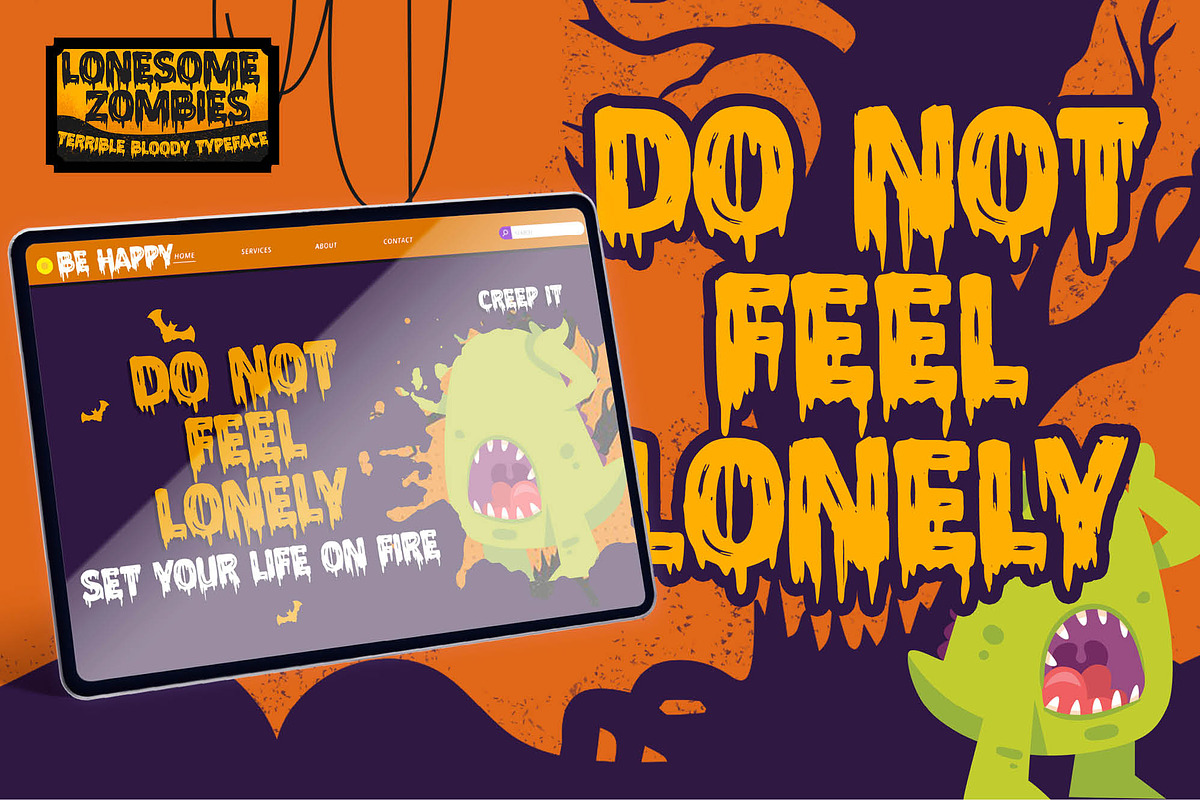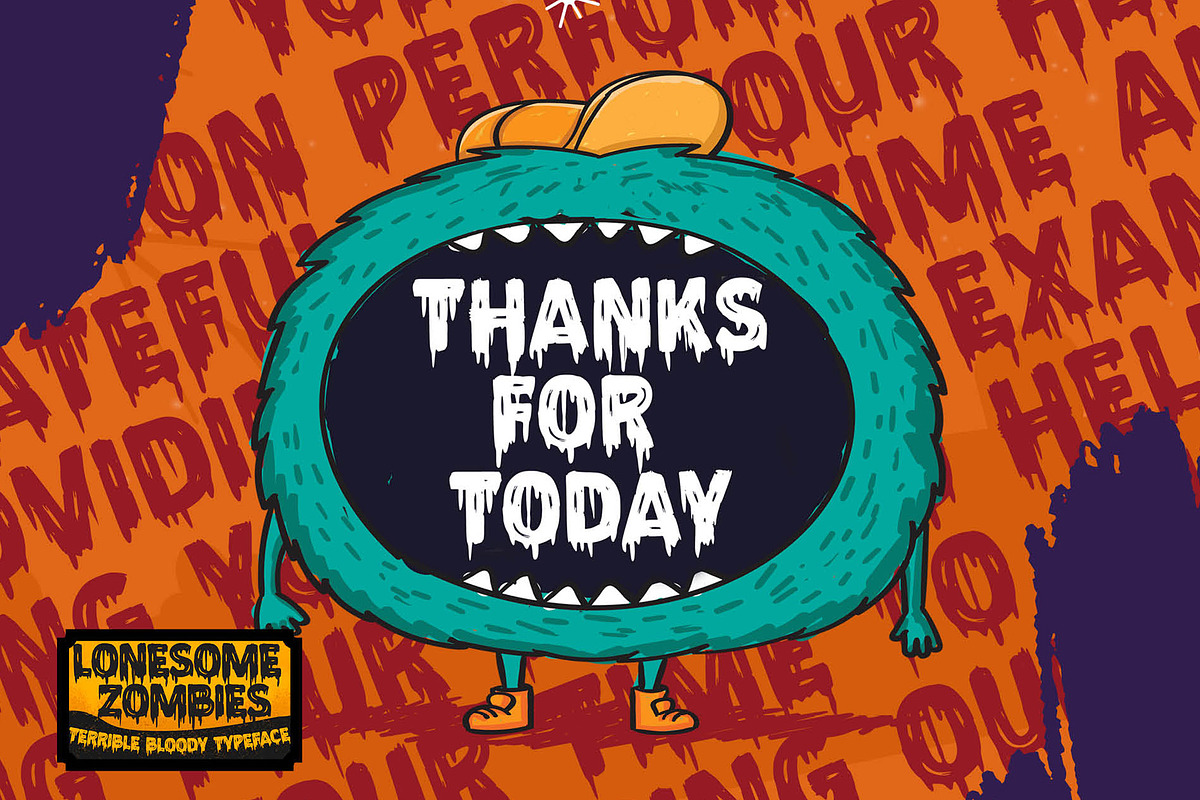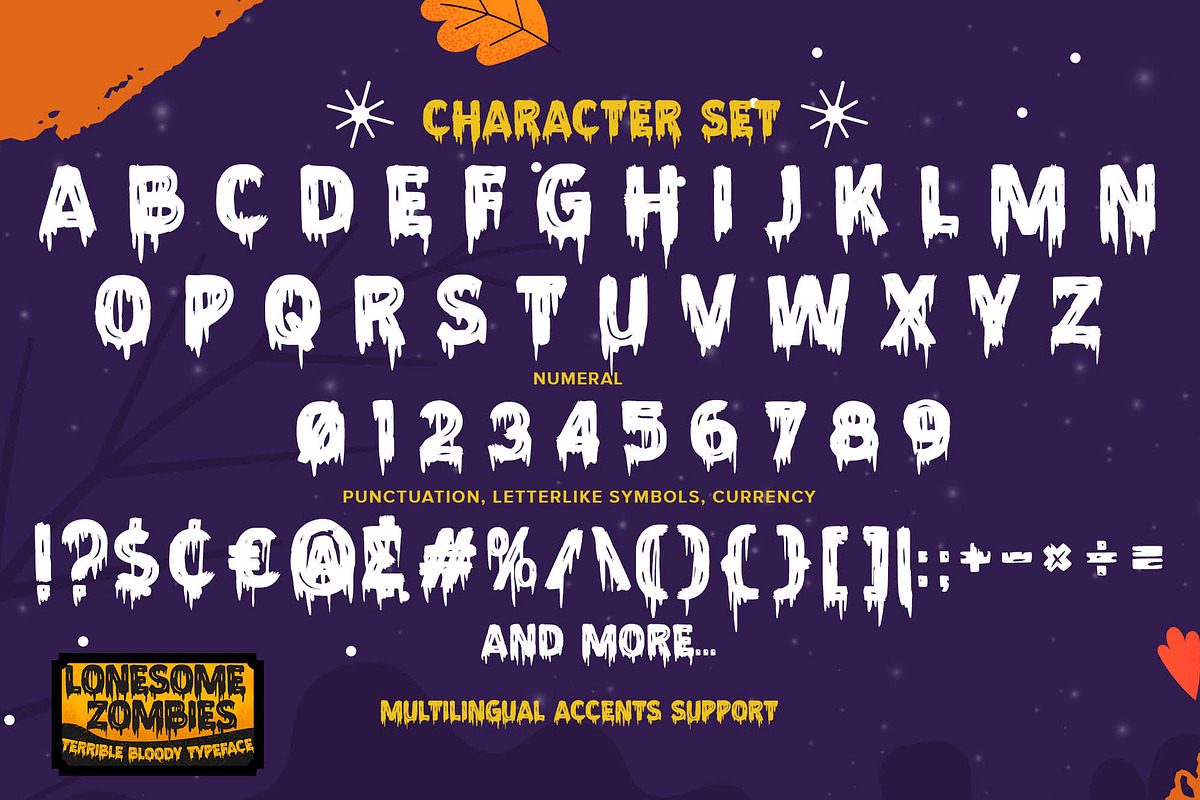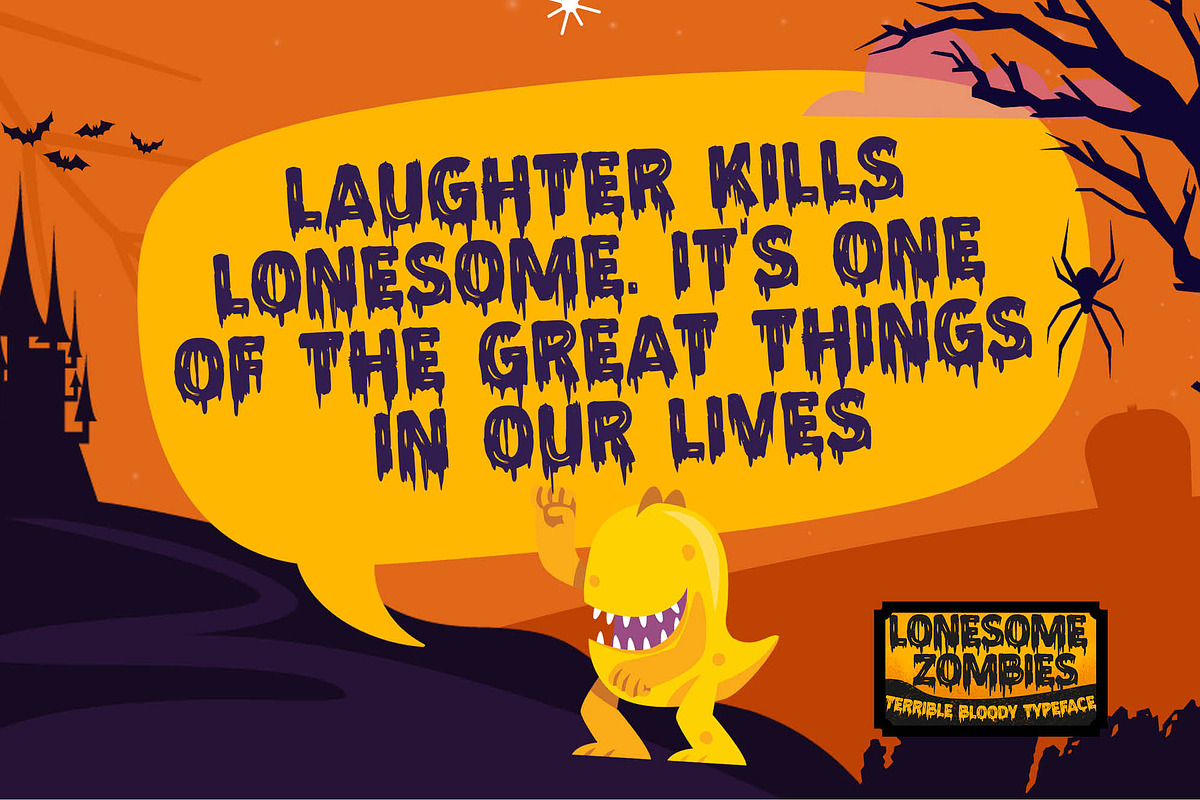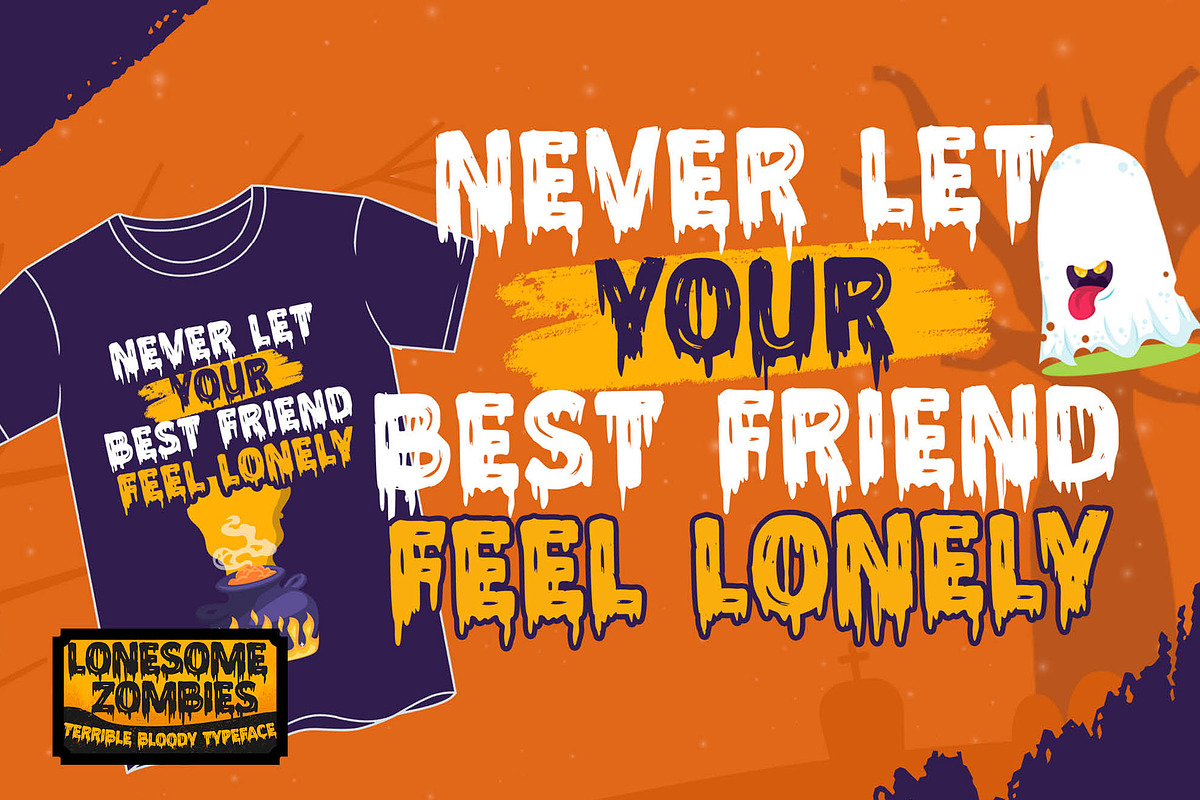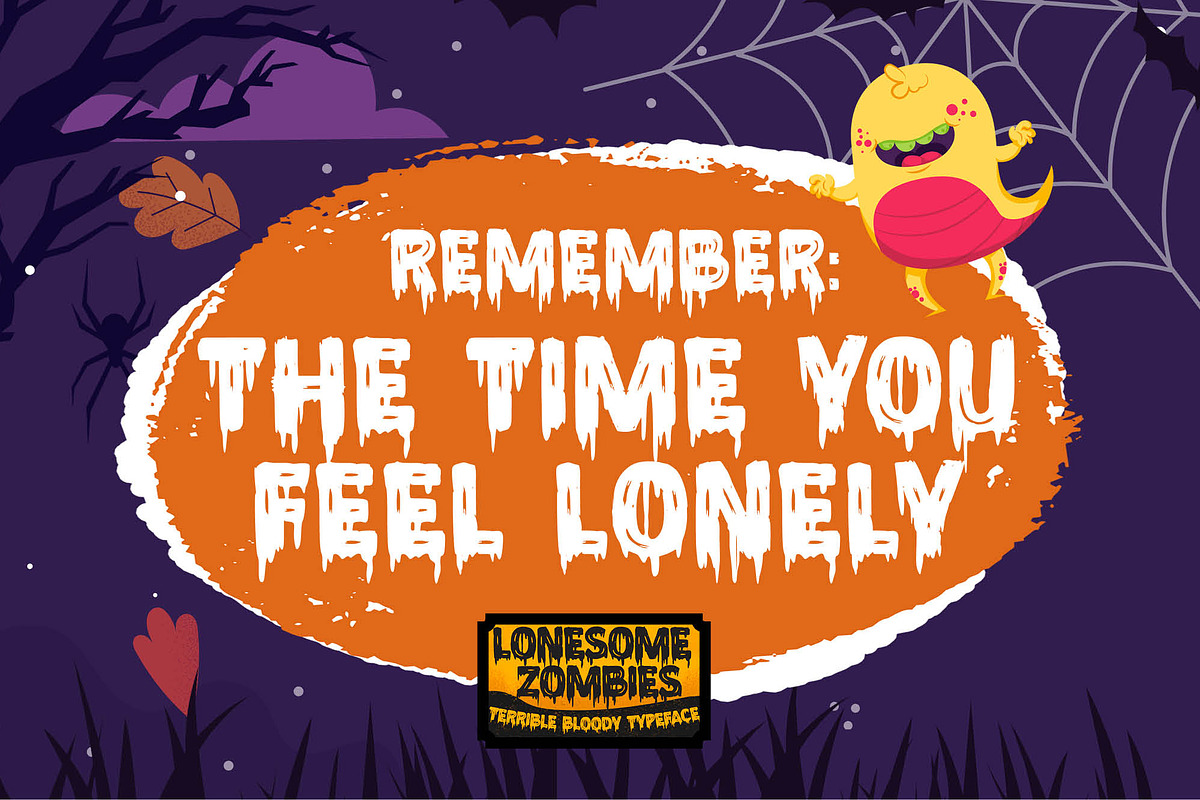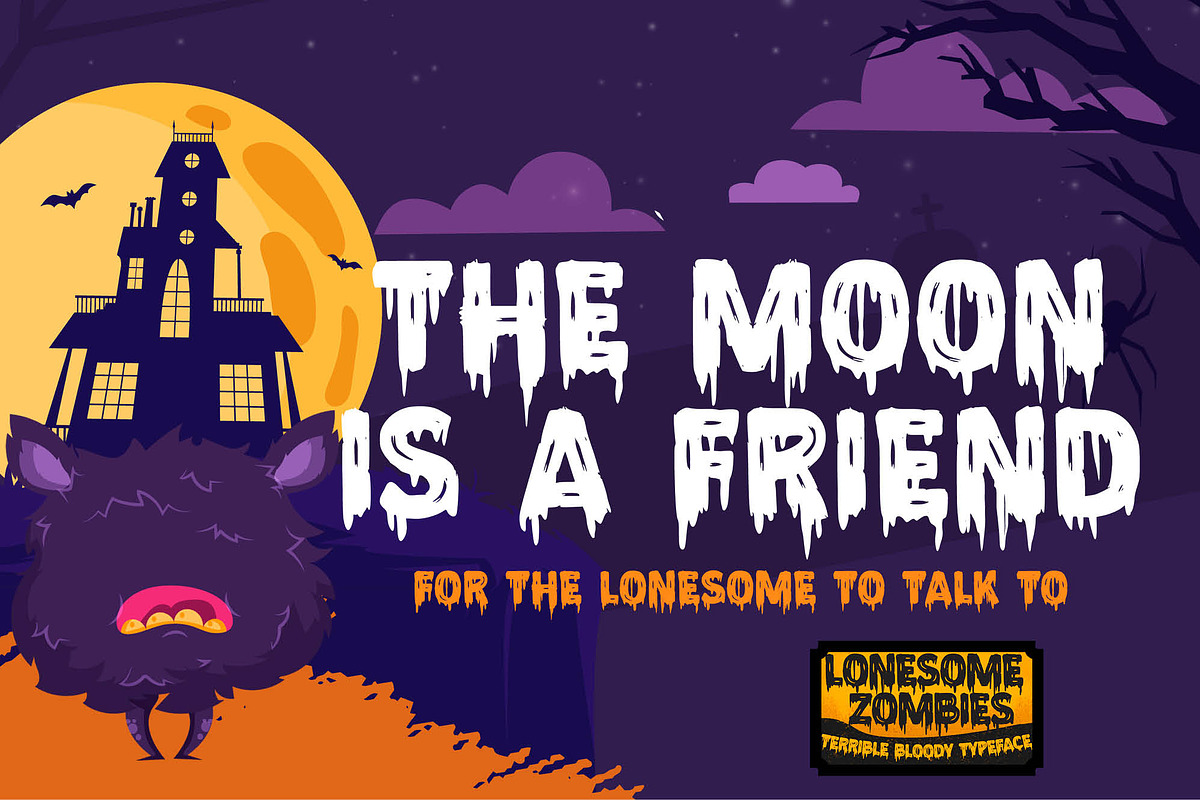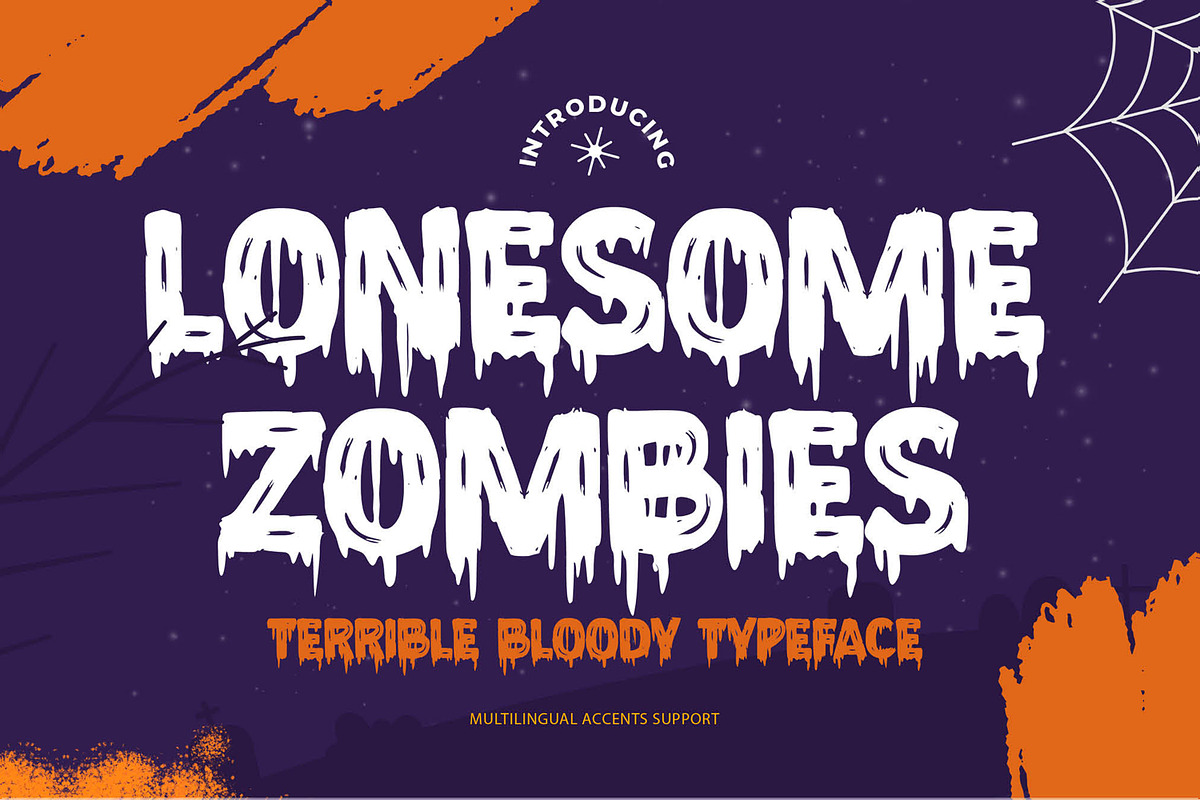
Lonesome Zombies - Terrible Bloody
Hello Everyone, introduce our new product Lonesome Zombies Terrible Bloody Typeface Brush font Best for poster, horror poster, childrenbook, cartoon rough, comic and project that need horror vibes.